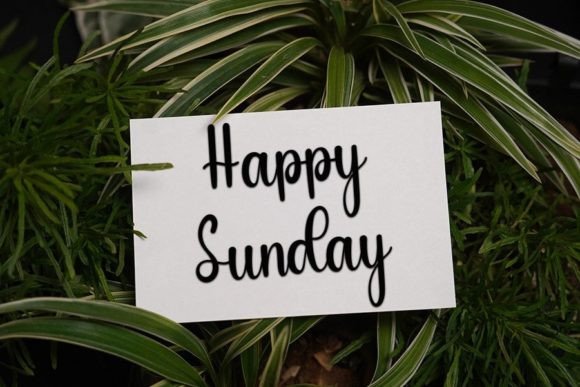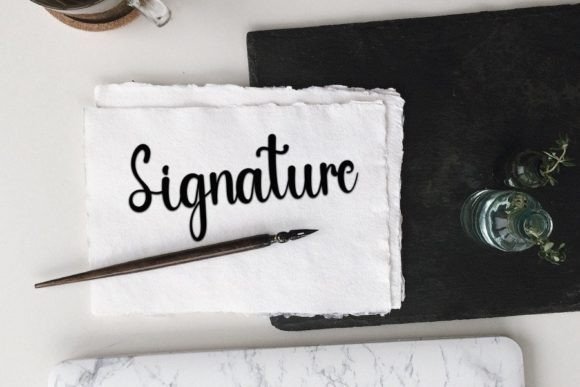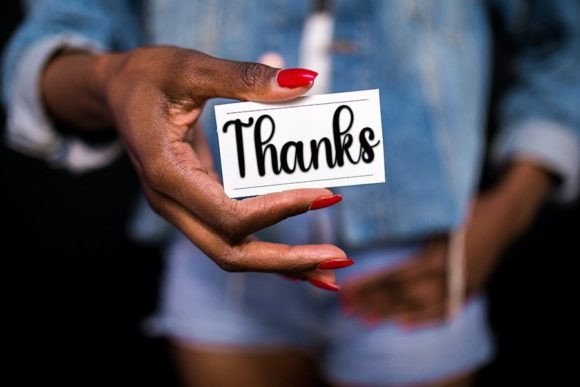
Giovani Font
About Giovani Font
Giovani is a refined and beautiful handwritten font distinguished by its elegant touch, making it an ideal choice for a variety of creative projects. Its neat and timeless style invites you to appreciate its distinct charm, allowing you to use it to craft spectacular designs.
The neat and beautiful handwritten style of Giovani imparts a sense of order and clarity to your text, making it well-suited for projects that demand a balance between sophistication and readability. The font’s elegance enhances its versatility, making it suitable for various design applications.
Whether applied to branding, invitations, or any design endeavor, Giovani’s distinct and timeless style adds an element of refined beauty to your favorite projects. The font’s graceful charm makes it suitable for a range of contexts, allowing it to elevate the visual appeal of your designs.
In branding projects, Giovani can contribute to a unique and memorable visual identity. Its elegant touch makes it versatile for different industries, bringing a sense of sophistication and style to your brand’s image.
For invitations, Giovani can create a visually stunning and sophisticated presentation. Whether used for formal events, weddings, or special occasions, the font’s timeless style adds a touch of class and elegance to the design.
The distinct and timeless style of Giovani ensures that it remains a versatile and captivating choice for various design applications. Its neat and beautiful handwritten aesthetic allows it to adapt seamlessly to different contexts, making it a reliable and visually pleasing font for your creative projects.
In summary, Giovani is more than just a font; it’s a design tool crafted to bring an elegant touch and refined beauty to your favorite projects. Whether applied to branding, invitations, or any creative endeavor, this font’s distinct charm and timeless style make it a sophisticated choice for creating spectacular and visually stunning designs.